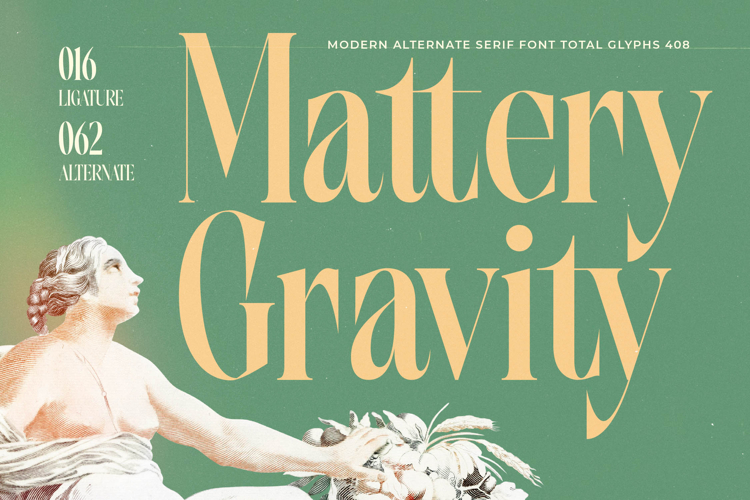
Mattery Gravity - Modern Alternate Serif Font
Unleash a new era of typographic elegance with Mattery Gravity - Modern Alternate Serif Font. This exquisite typeface boasts a striking high-contrast design, where delicate thin strokes meet robust serifs, creating a truly captivating visual rhythm. Its modern interpretation of classic serif forms delivers a sophisticated and powerful visual statement, perfect for projects demanding an air of refined authority.
Elevate your creative vision with the extensive capabilities of Mattery Gravity - Modern Alternate Serif Font. Featuring a rich collection of ligatures and alternative characters, this font offers unparalleled creative freedom. These meticulously crafted variations enable designers to forge unique typographic compositions, ensuring your headlines and branding stand out with distinctive charm and custom appeal across all mediums.